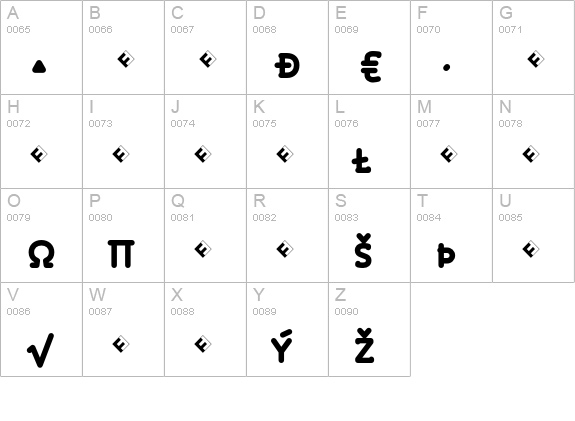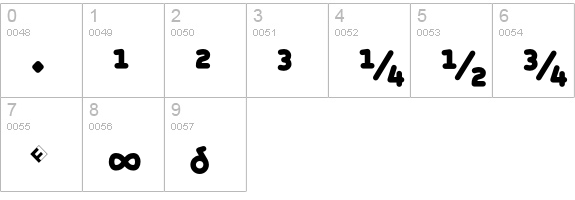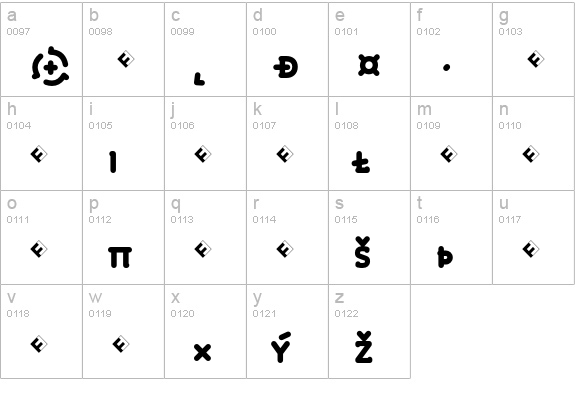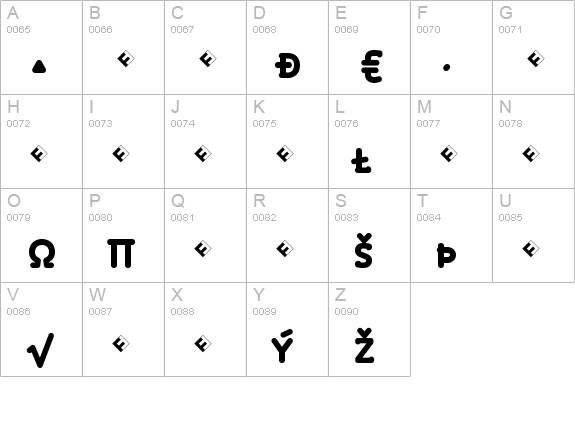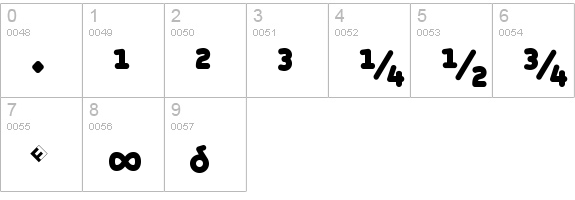
Roice-BlackSCExpert Font Details
Introducing Roice-BlackSCExpert font, a sleek and sophisticated typeface perfect for adding a touch of elegance to your designs. With its modern yet timeless aesthetic, this font exudes a sense of professionalism and class. The bold and sharp lines of Roice-BlackSCExpert make it a standout choice for headings, titles, and logos. What sets Roice-BlackSCExpert apart is not only its striking appearance but also the fact that it is available for free. Yes, you read that right! You can easily download this exquisite font at FontsMarket.com without any cost. Whether you're working on a branding project, a website design, or any other creative endeavor, Roice-BlackSCExpert is sure to elevate your work to the next level. Don't miss out on the opportunity to enhance your designs with this stunning font – download Roice-BlackSCExpert today and unleash your creativity!